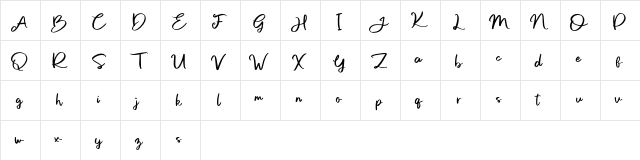
Sweet Buttermilk Free Script Regular
Design Context for Sweet Buttermilk Free Script Typeface
Sweet Buttermilk Free Script brings a calligraphic fluidity to the page — its connecting strokes and expressive curves give it an unmistakably human quality.
Font Pairing: Combine Sweet Buttermilk Free Script with a simple geometric sans for maximum contrast — the tension between flowing curves and clean structure is a classic typographic pairing.
Pro Tip: Pair Sweet Buttermilk Free Script with a clean sans-serif for supporting text. The contrast between fluid script and geometric structure creates an elegant typographic hierarchy.